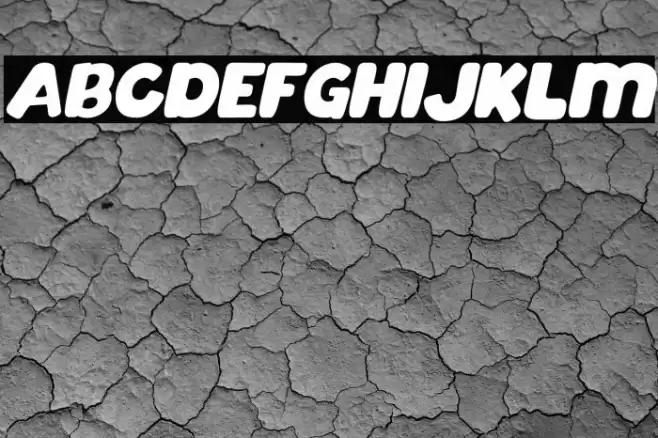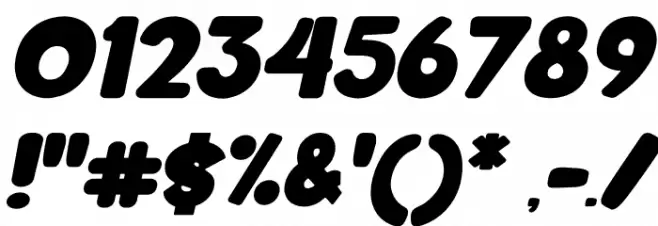
Mahoney Tilted Font
Mahoney Tilted Description
This font features a bold and playful style with a distinct tilt to the right, giving it a dynamic and energetic appearance. The characters are rounded and thick, creating a sense of friendliness and approachability. The uppercase and lowercase letters maintain a consistent weight, contributing to a cohesive look. The numbers and special characters are equally bold, ensuring readability and uniformity across different uses. The overall design is modern and eye-catching, making it suitable for projects that require a fun and engaging typeface.
A bold, tilted, and playful font with rounded characters from Cartoon fonts.
- Proposed Projects: Ideal for children's books, playful branding, posters, and social media graphics.